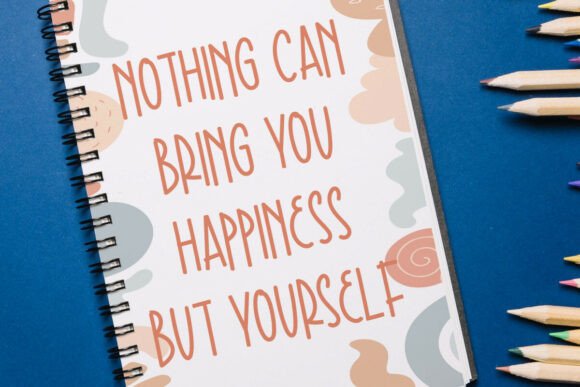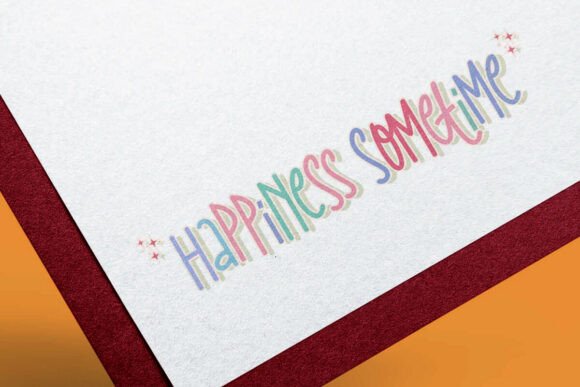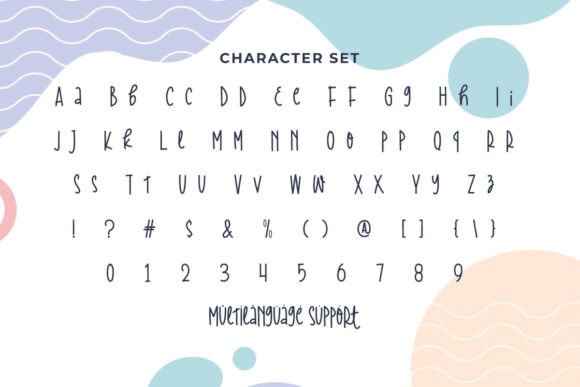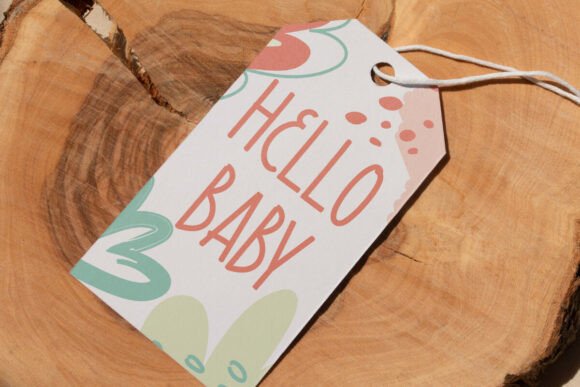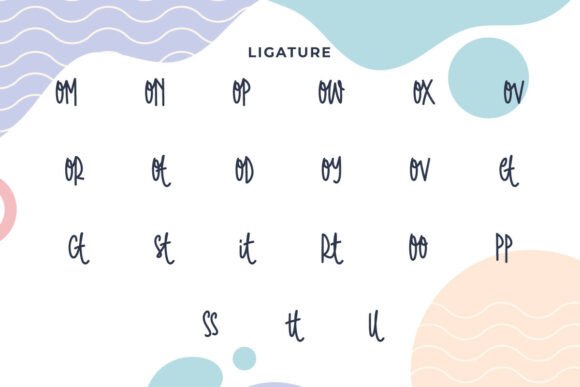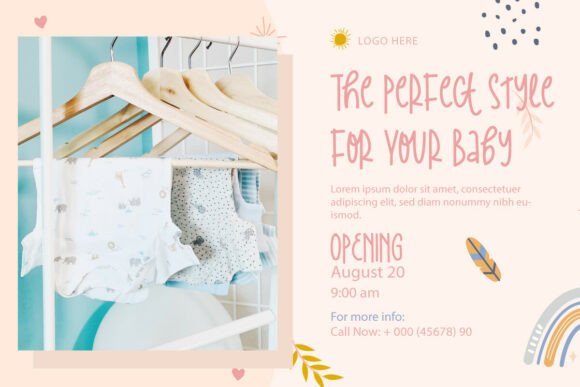
Happiness Sometime Font: The Perfect Handwritten Display Font for Your Designs
Are you looking for a font that can add a touch of warmth and personality to your designs? Look no further than Happiness Sometime Font, a lovely display font with a handwritten style that’s perfect for creating a natural and cute vibe. In this article, we’ll explore the features and benefits of Happiness Sometime Font, and how it can elevate your designs to the next level.
What is Happiness Sometime Font?
Happiness Sometime Font is a beautiful handwritten display font that’s designed to bring a sense of joy and playfulness to your designs. With its unique and charming lettering style, this font is perfect for creating eye-catching and engaging designs that stand out from the crowd. Whether you’re a designer, crafty, or simply someone who loves to create, Happiness Sometime Font is an excellent choice for adding a personal touch to your work.
Features of Happiness Sometime Font
So, what makes Happiness Sometime Font so special? Here are some of its key features:
• Handwritten style: Happiness Sometime Font has a beautiful handwritten style that’s perfect for creating a natural and organic look.
• Cute and playful vibe: This font has a charming and playful personality that’s sure to bring a smile to your face.
• Display font: Happiness Sometime Font is designed as a display font, making it perfect for headlines, titles, and other attention-grabbing elements.
• Versatile: This font can be used for a wide range of designs, from stationery and invitations to labels, brand images, and more.
Use Cases for Happiness Sometime Font
So, what can you use Happiness Sometime Font for? The possibilities are endless! Here are some ideas to get you started:
• Stationery: Add a personal touch to your letters, cards, and journals with Happiness Sometime Font.
• Invitations: Create beautiful and eye-catching invitations for parties, weddings, and other special events.
• Labels: Use Happiness Sometime Font to create cute and colorful labels for your products, gifts, or storage containers.
• Brand image: Establish your brand’s personality with a custom logo or typography featuring Happiness Sometime Font.
• Calendar: Create a unique and engaging calendar with Happiness Sometime Font.
• Cover design: Use this font to create stunning cover designs for books, magazines, or other publications.
• Custom design: Get creative and use Happiness Sometime Font to design custom graphics, illustrations, or artwork.
• Greeting cards: Create heartfelt and personalized greeting cards for special occasions.
• Poster: Design eye-catching posters for events, promotions, or social causes.
• Product packaging: Add a touch of personality to your product packaging with Happiness Sometime Font.
• Quotes: Create inspiring and visually appealing quote graphics for social media or blogs.
• Web design: Use Happiness Sometime Font to create engaging and interactive web designs.
Why Choose Happiness Sometime Font?
So, why should you choose Happiness Sometime Font for your designs? Here are some compelling reasons:
• Unique and creative: Happiness Sometime Font offers a fresh and unique perspective on handwritten typography.
• Easy to read: Despite its playful style, this font is easy to read and understand, making it perfect for body text and captions.
• Customizable: You can adjust the font size, color, and style to fit your design needs.
• Time-saving: With Happiness Sometime Font, you can create stunning designs in no time, saving you time and effort.
In conclusion, Happiness Sometime Font is a versatile and charming handwritten display font that’s perfect for adding a touch of personality to your designs. With its unique style, versatility, and ease of use, this font is an excellent choice for designers, crafters, and creatives of all levels. So why wait? Download Happiness Sometime Font today and start creating stunning designs that bring joy and happiness to your audience!